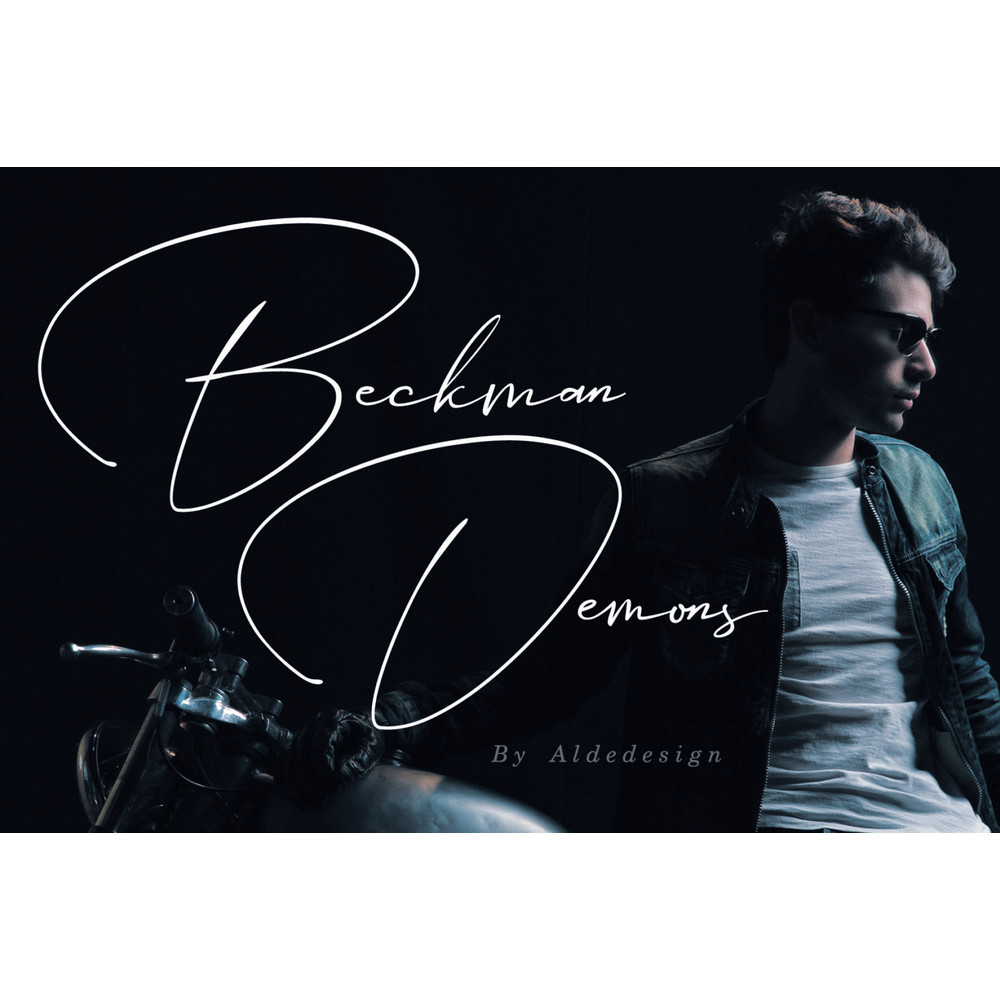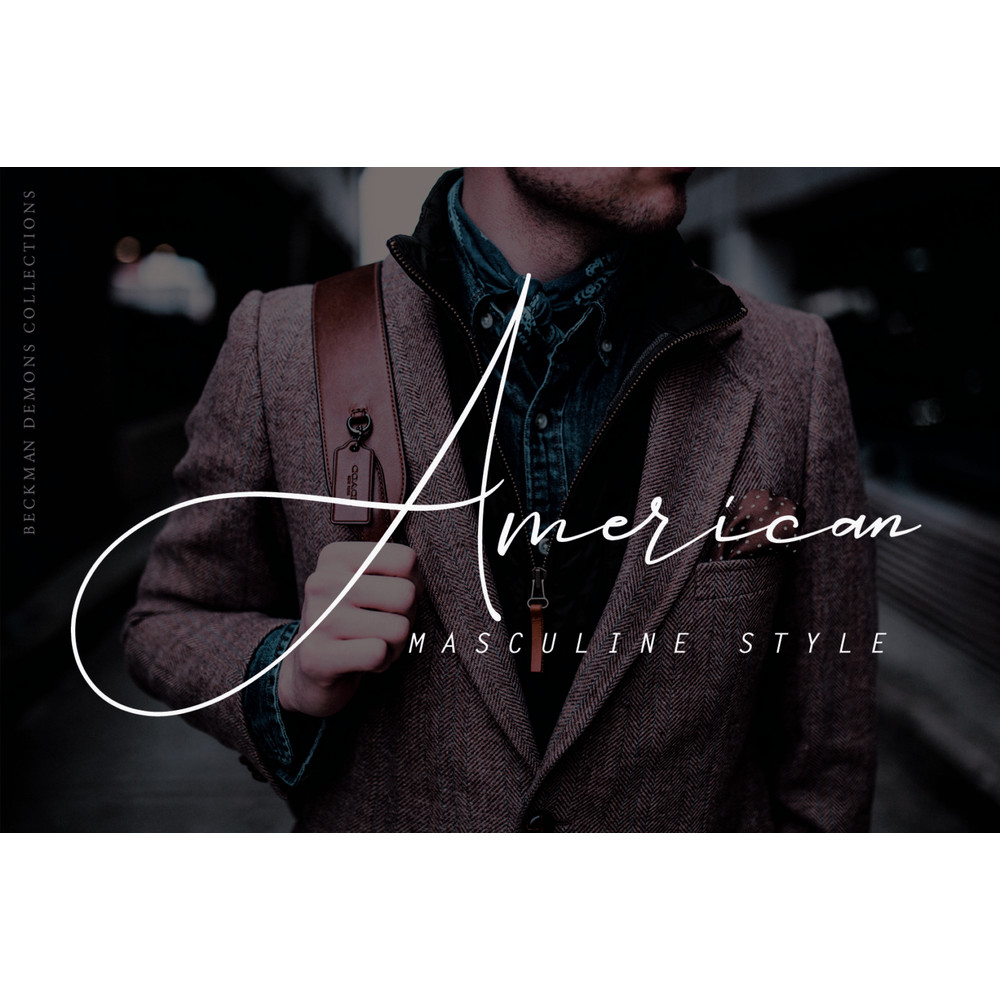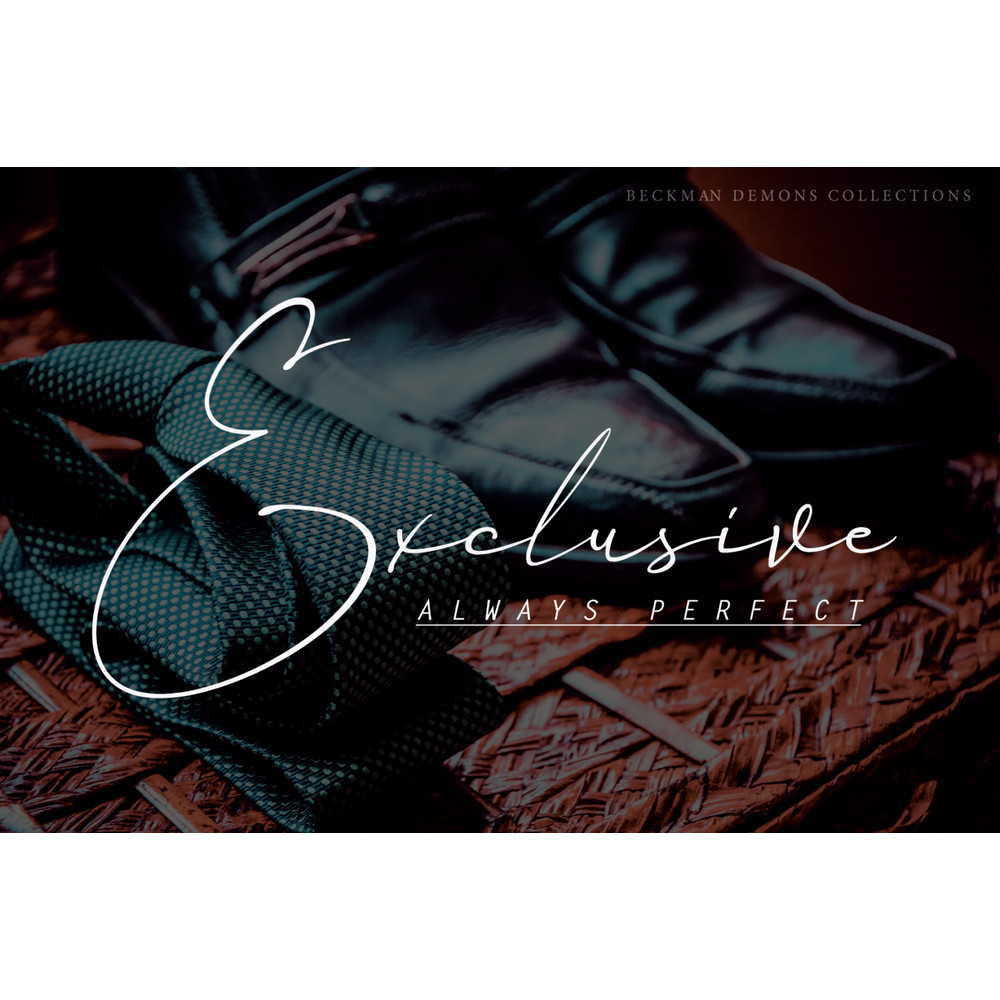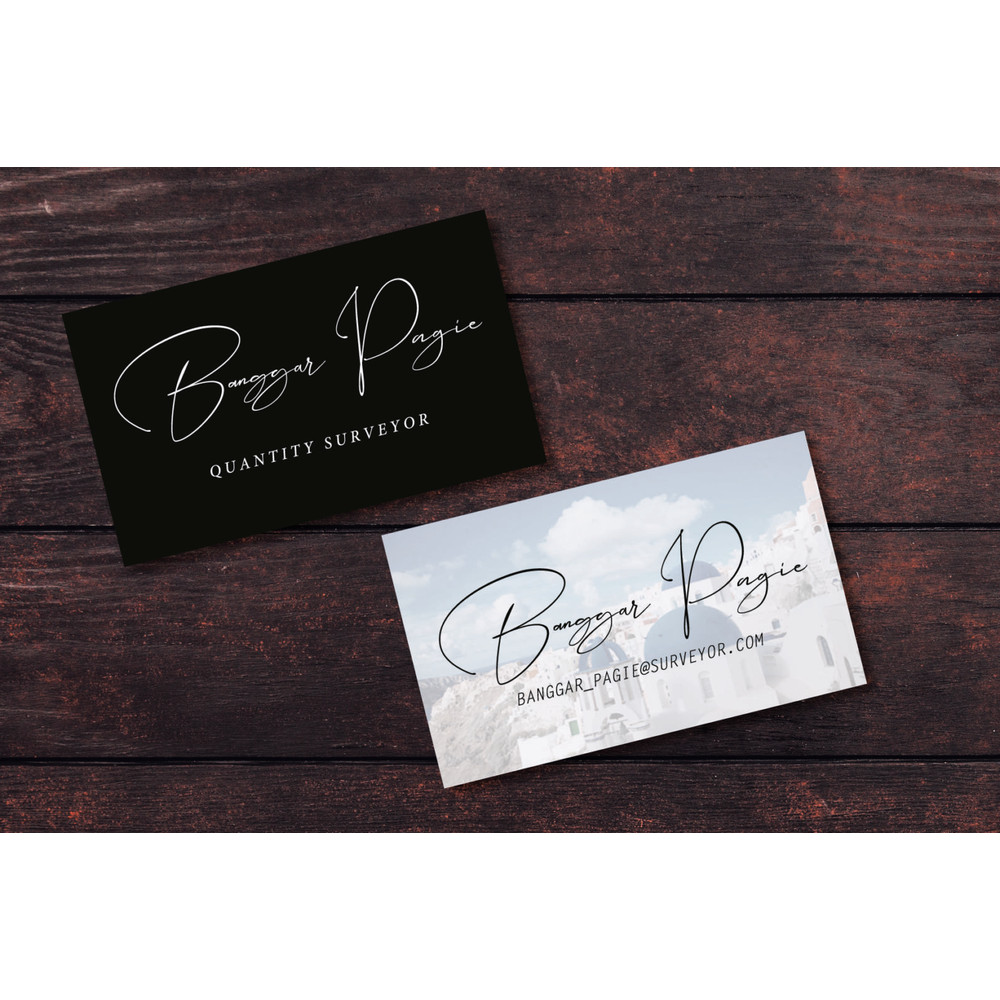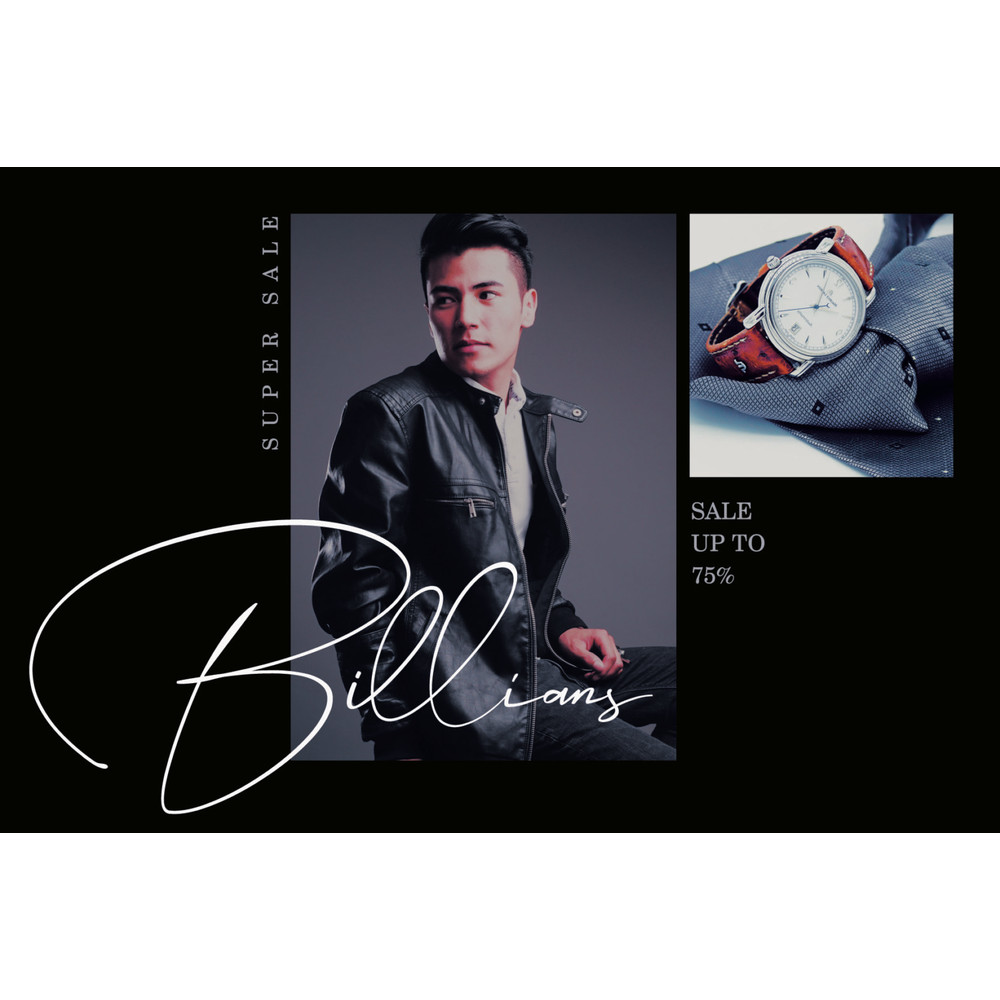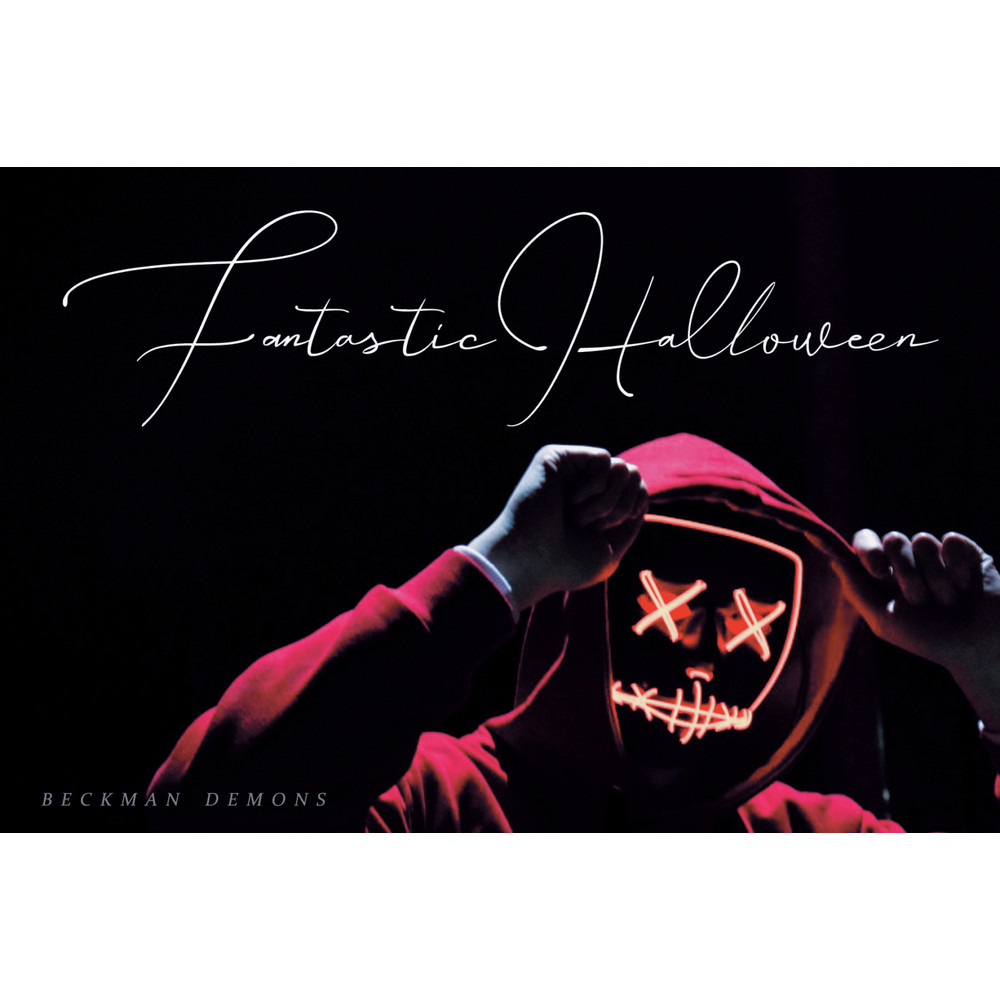
Beckman Demons – Signature Font
The Beckman Demons is a stylish signature font that is inspired by modern photography.
It’s easy to use, to create a stunning watermark for your photos, invitations, branding.
It also works great as a business signature or on other branding materials.
-Stylish handwritten style
-Special Ligatures